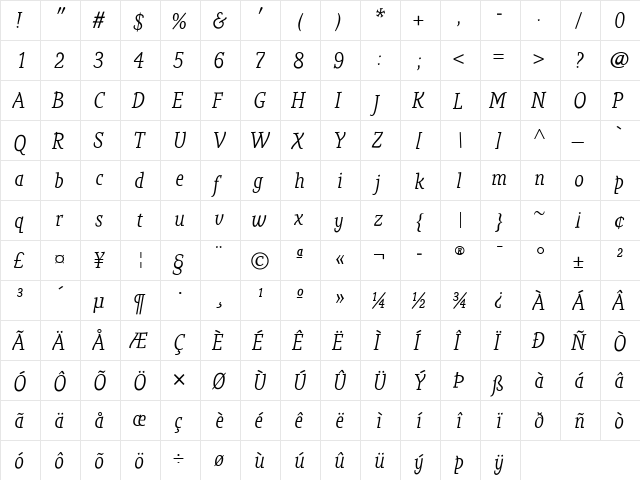
Poseidon Italic
Design Context for Poseidon Typeface
Poseidon offers clean, dependable letterforms without strong stylistic allegiance, making it a practical choice for designers who need flexibility. The dynamic lean of this cut emphasises speed and emphasis in any layout.
Pro Tip: Try Poseidon for annotation and caption copy alongside an upright companion — the contrast in angle creates a dynamic but ordered typographic system.